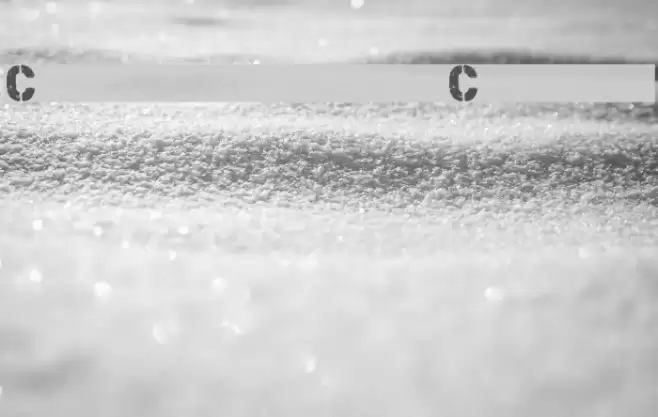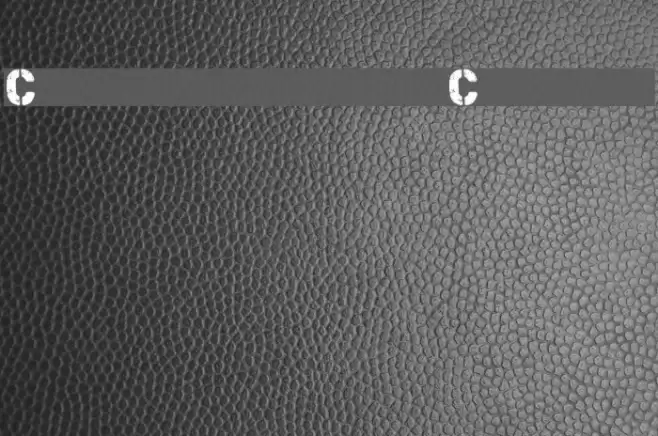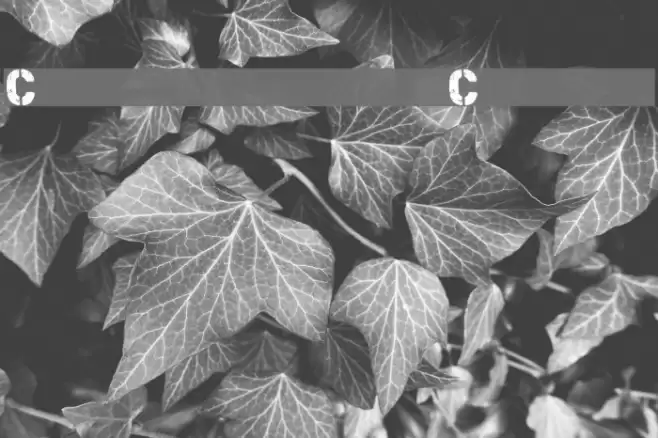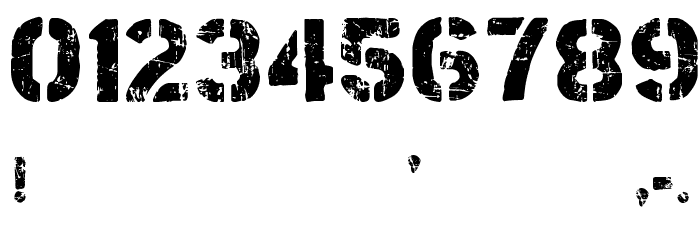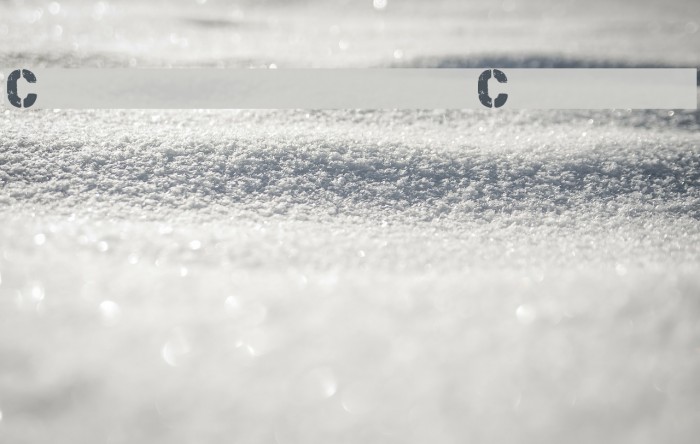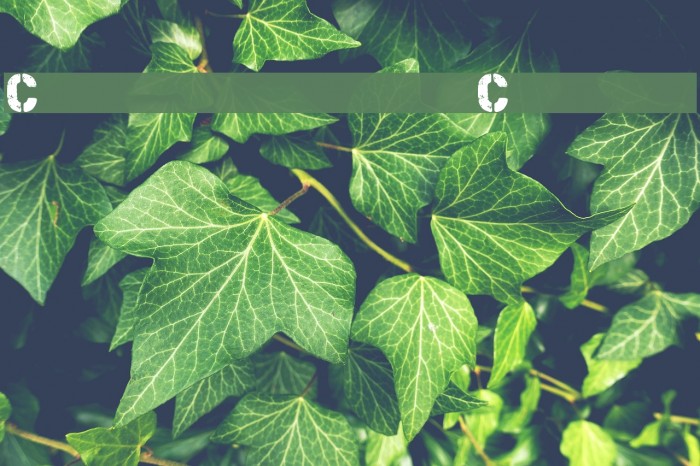
Checkpoint Charlie Font
Checkpoint Charlie Description
This font features a bold, distressed style with a stencil-like appearance, reminiscent of military or industrial design. The characters are uppercase and numerals, each with a rough, textured finish that gives an aged, weathered look. The font's design is highly impactful, making it suitable for attention-grabbing headlines or thematic projects that require a rugged, vintage aesthetic. The spacing between characters is normal, allowing for clear readability despite the distressed effect. The overall style is decorative and bold, with a high contrast in stroke thickness, emphasizing its strong and assertive presence.
A bold, distressed stencil-style font with a rugged, vintage look from Uncategorized fonts.
- Proposed Projects: Ideal for posters, branding, military-themed designs, or any project needing a strong, vintage aesthetic.
- Overall Style: Vintage